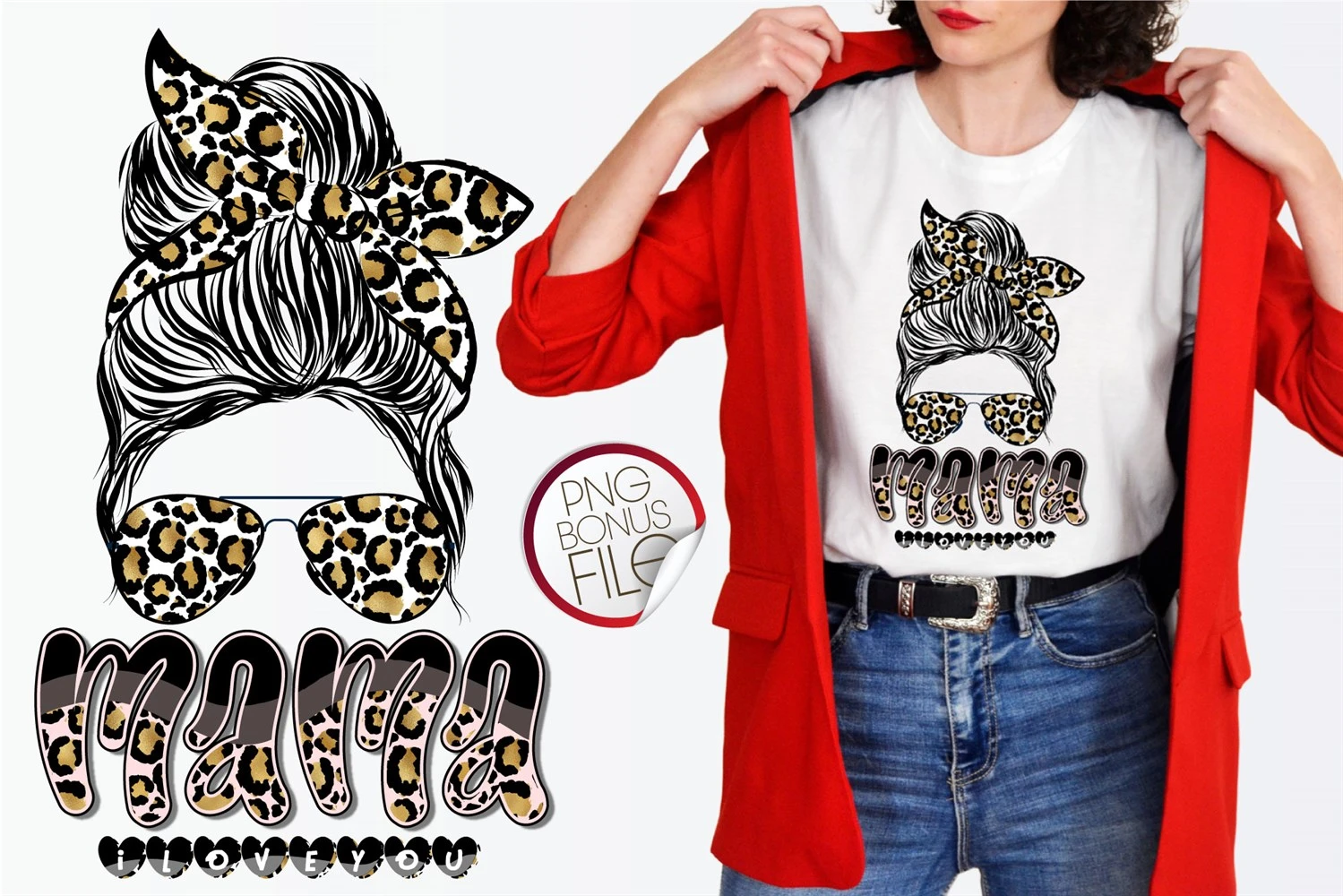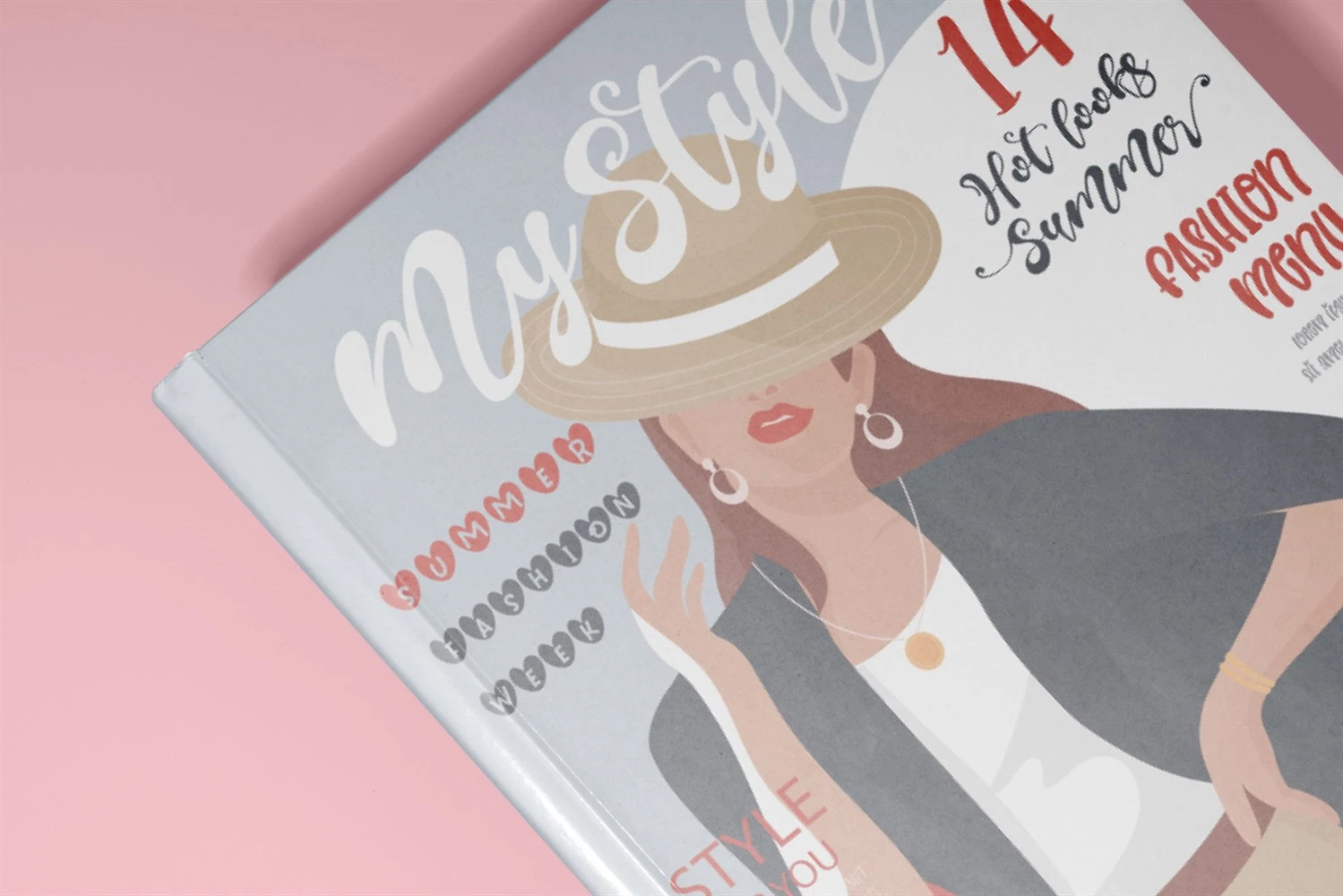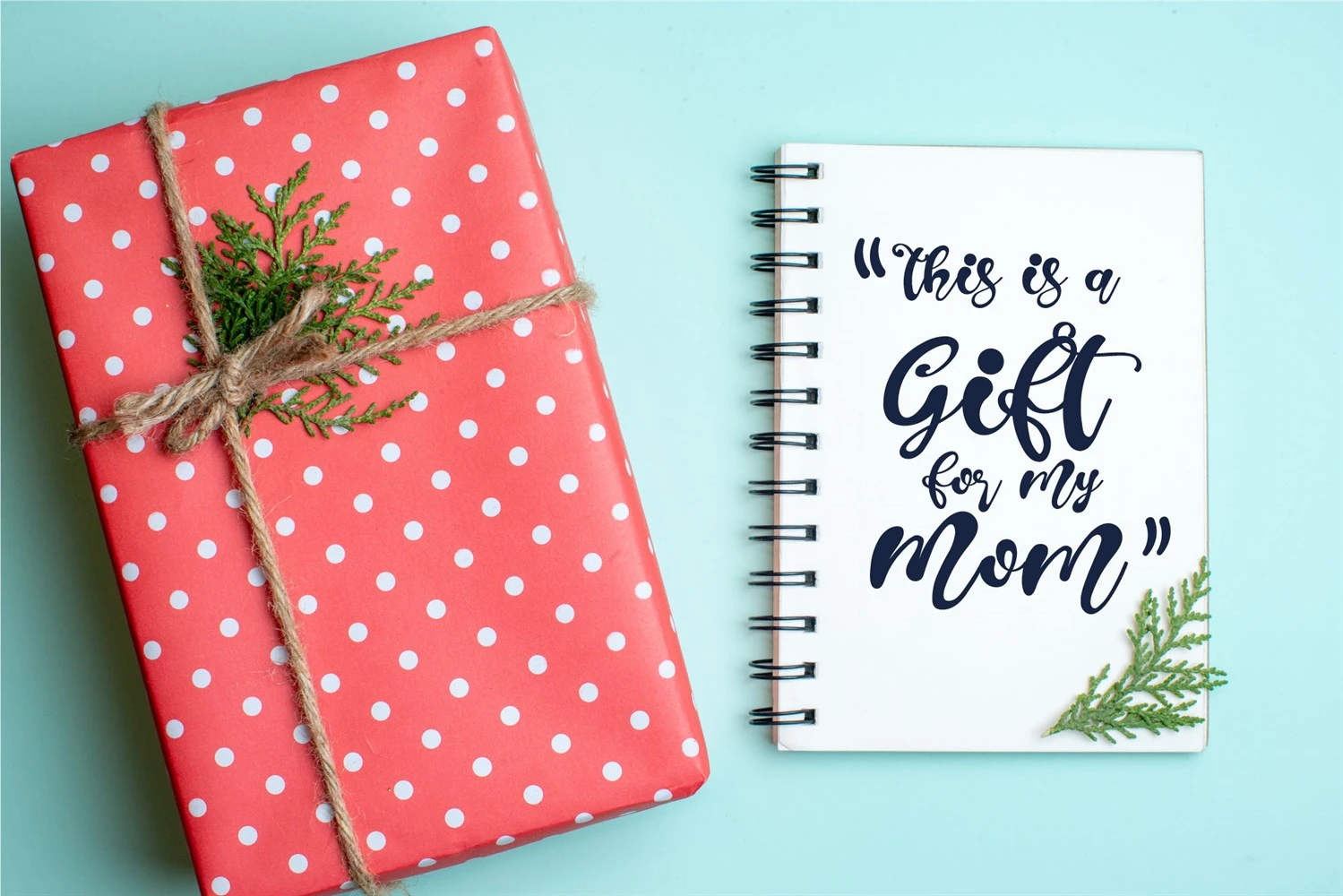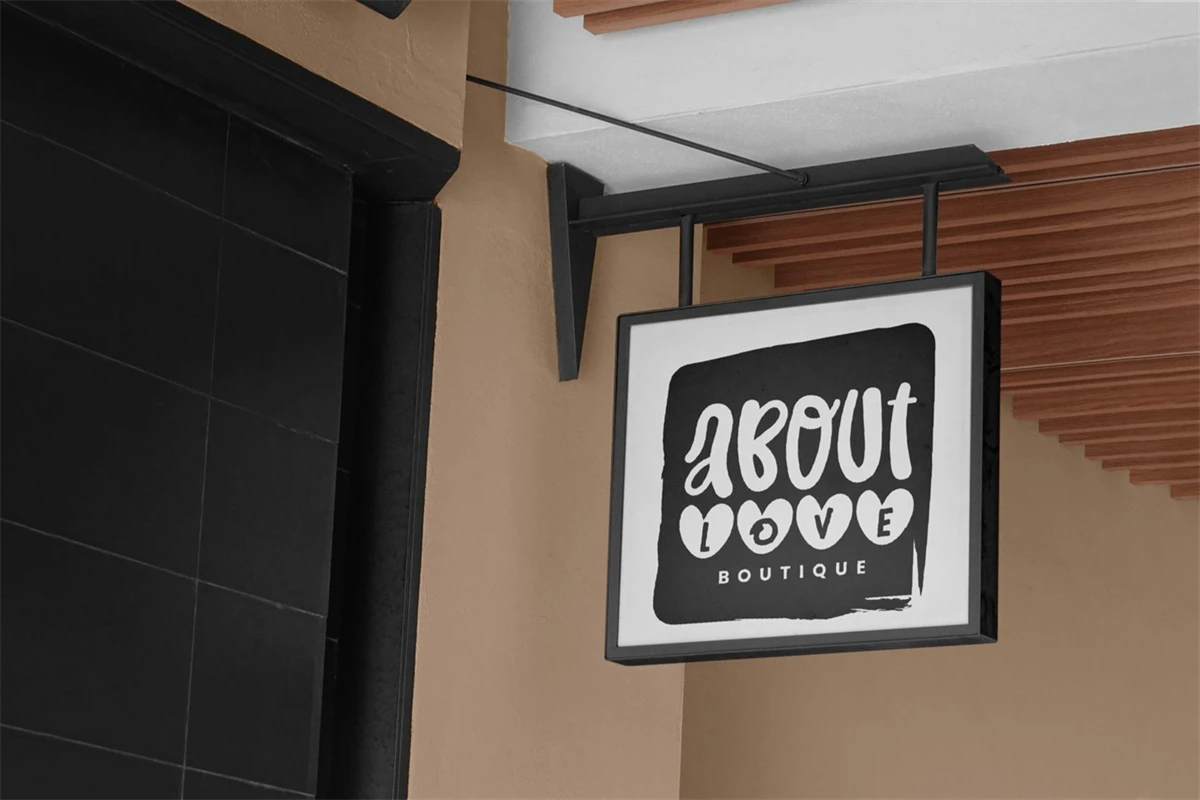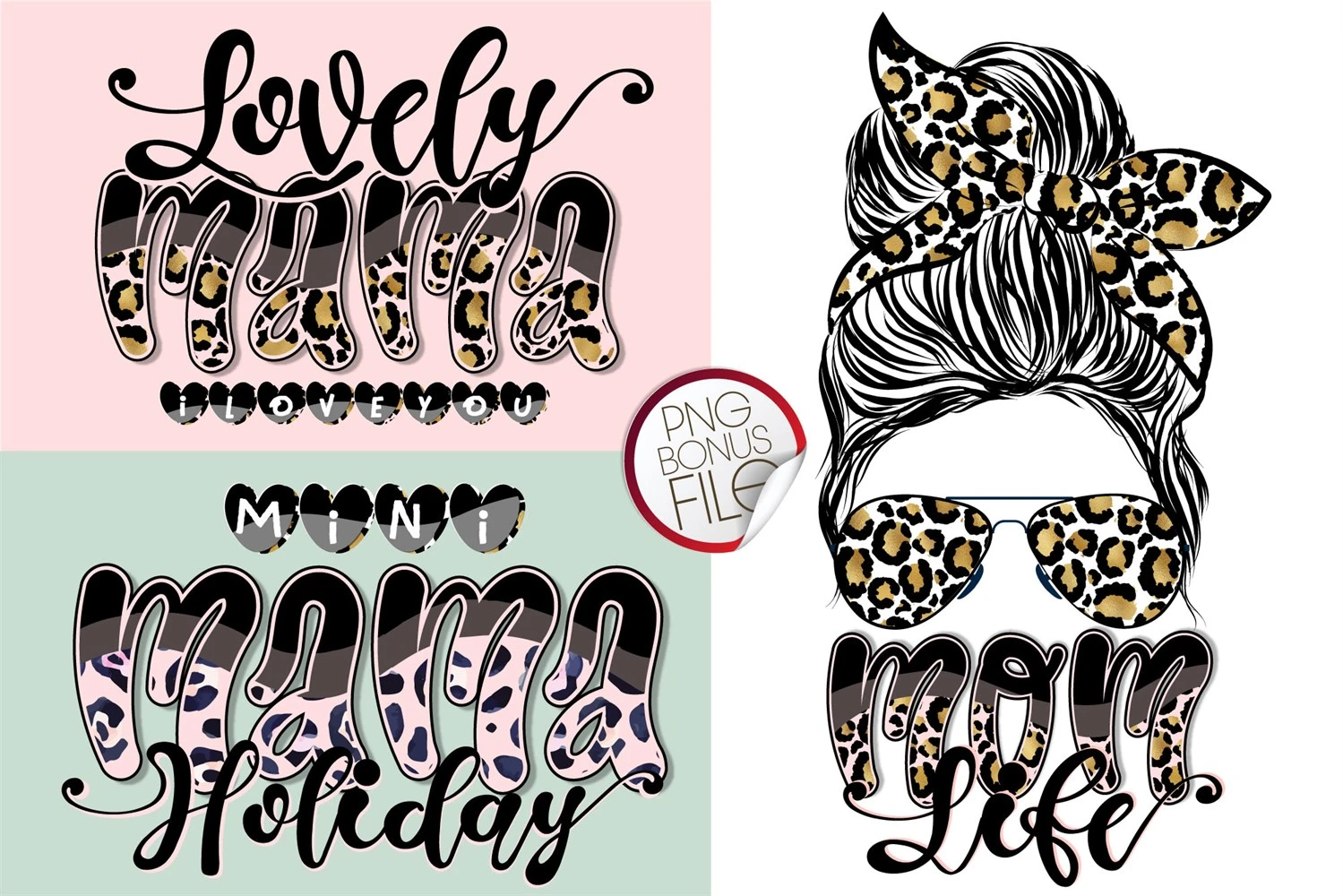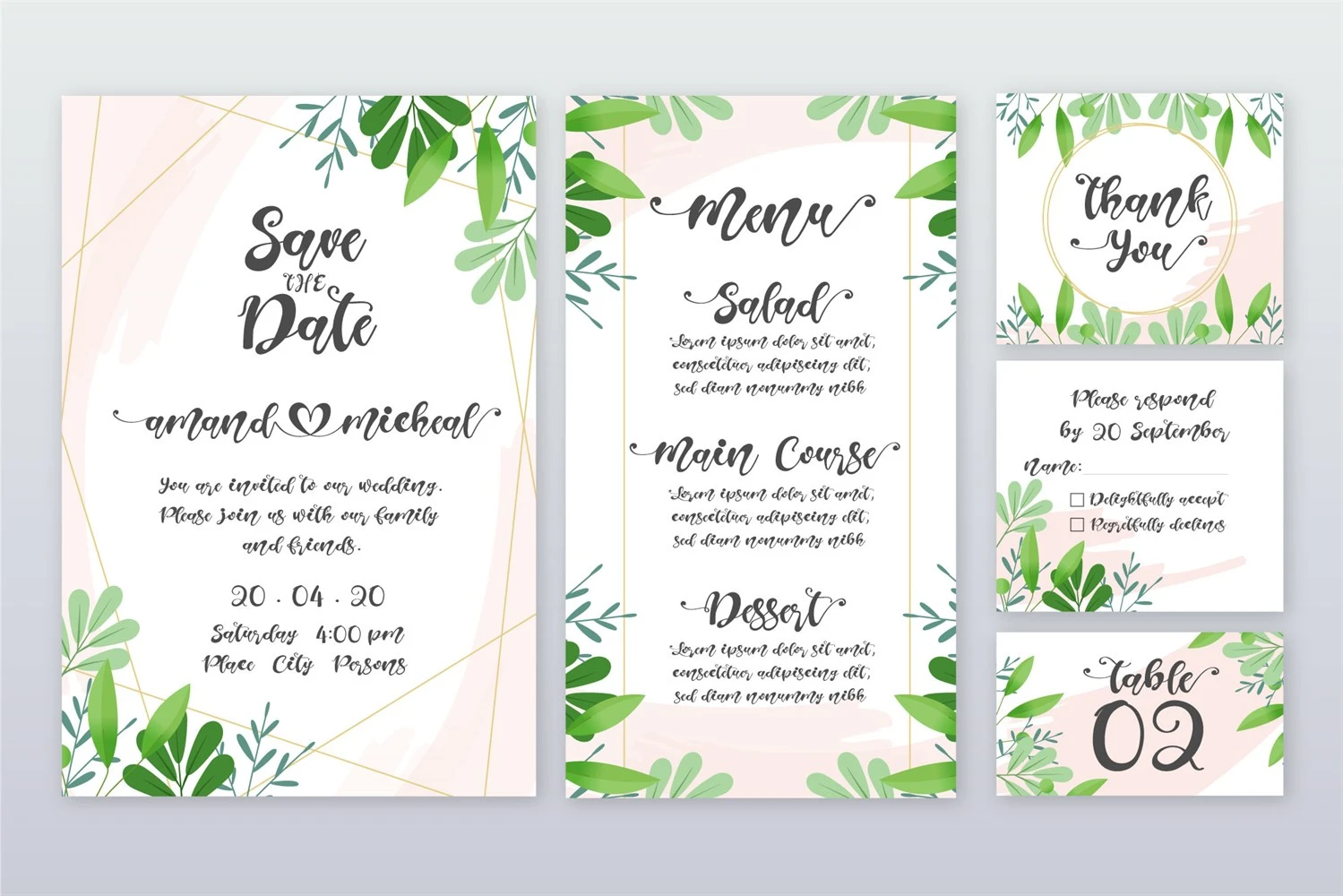
Lovely Mama I Love You Font is a delightful duo of fonts designed to bring a touch of charm and cheer to your creative projects. This font set consists of two beautifully crafted fonts that complement each other perfectly. Whether used together or individually, Lovely Mama I Love You Font is ideal for adding a chic and stylish vibe to your crafts. With its PUA encoding, accessing all the unique glyphs and swashes is a breeze! Explore the endless possibilities and let your creativity shine with Lovely Mama I Love You Font. "